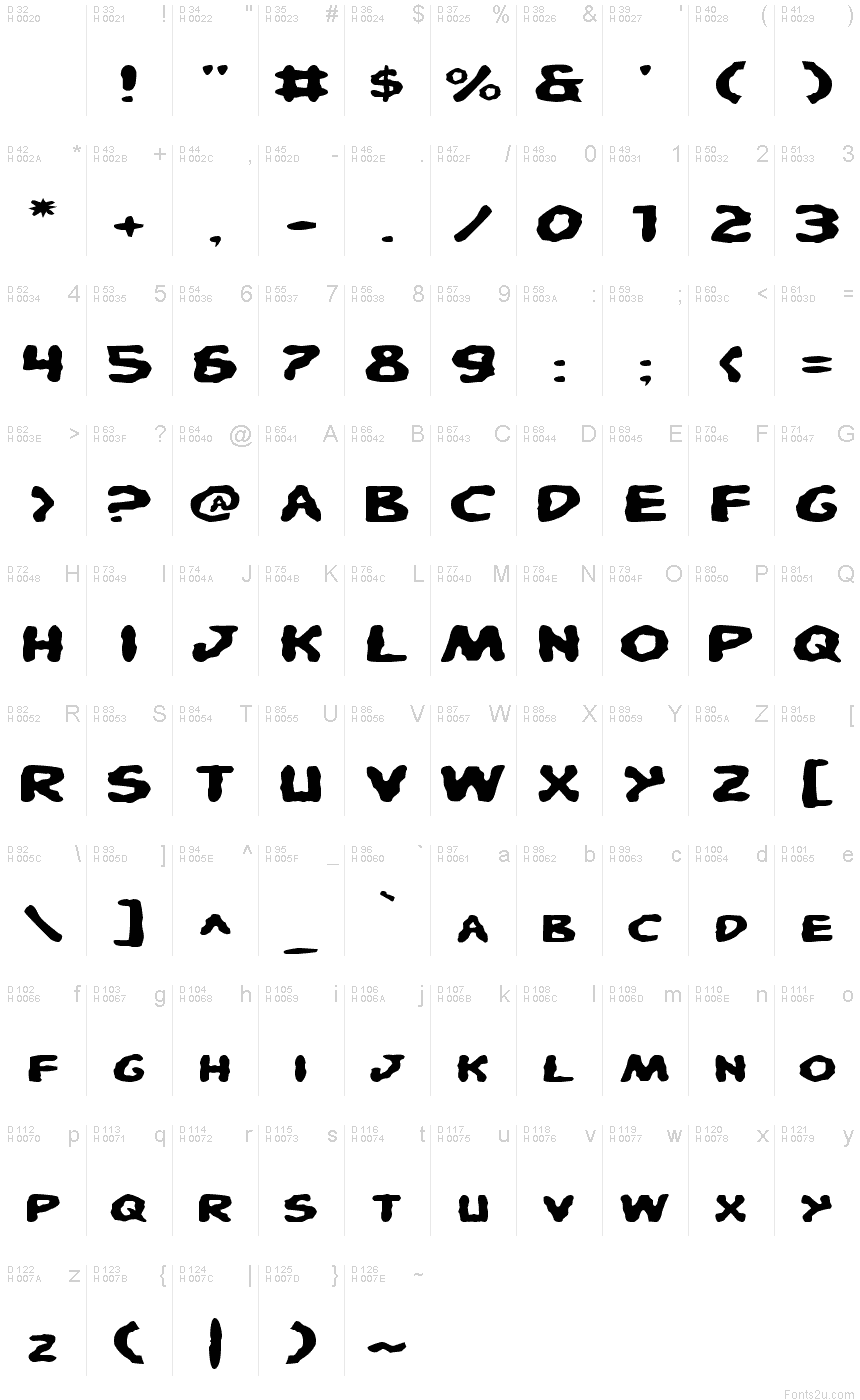
Pandemonious Puffery Expanded
Pandemonious Puffery Expanded by Iconian Fonts is a free cartoon display font with rounded, blobby forms and rough, eroded edges. The letters feel uneven and hand-cut, with wide shapes that look slightly worn rather than rigid or polished.
Pandemonious Puffery Expanded works well for poster titles, comic-style graphics, album art, event flyers, kids' branding, and merch graphics. Its distorted outline and scruffy texture give short display words a rough, animated edge that suits any layout that needs a bit of messy character without losing the playful cartoon shape.